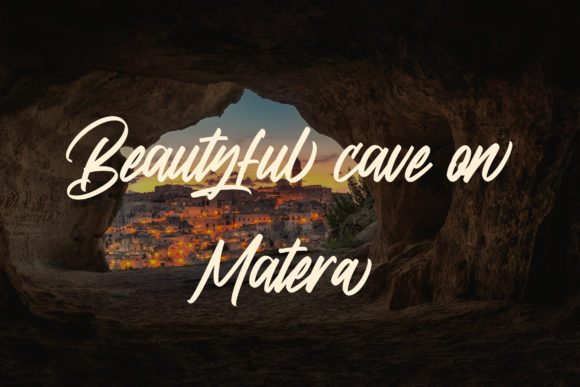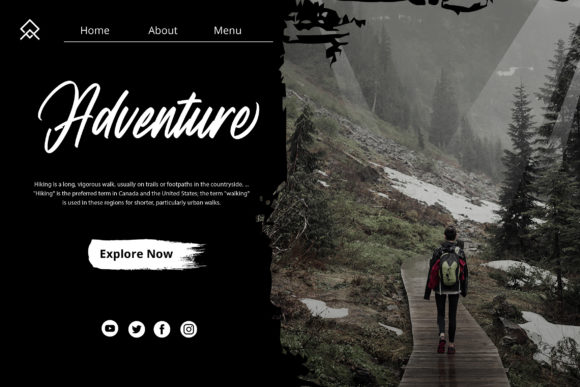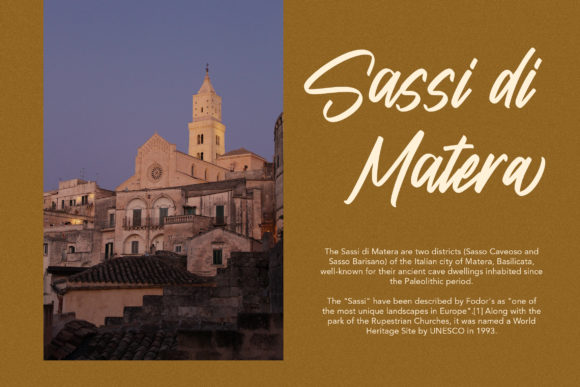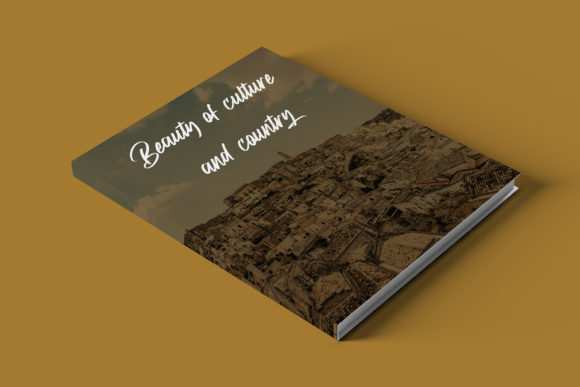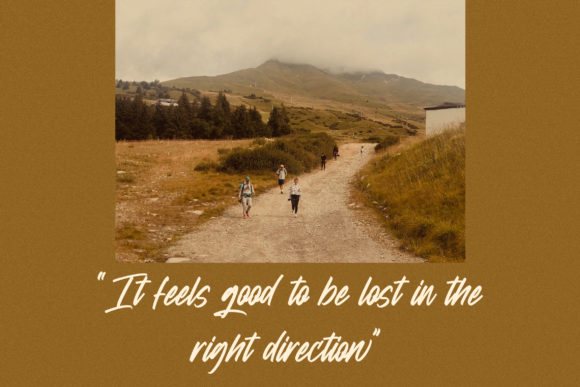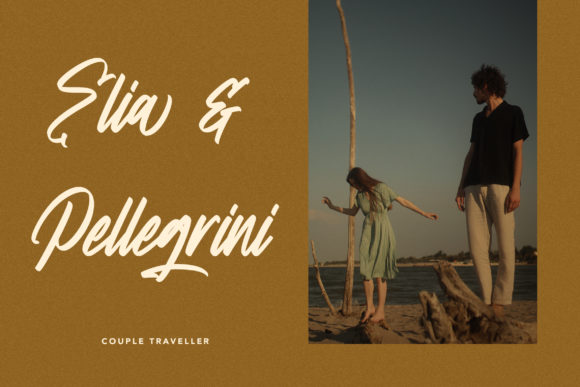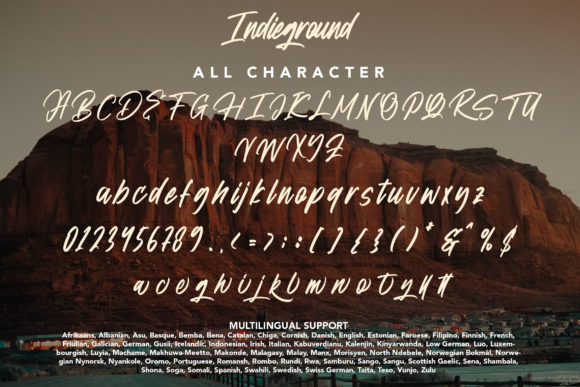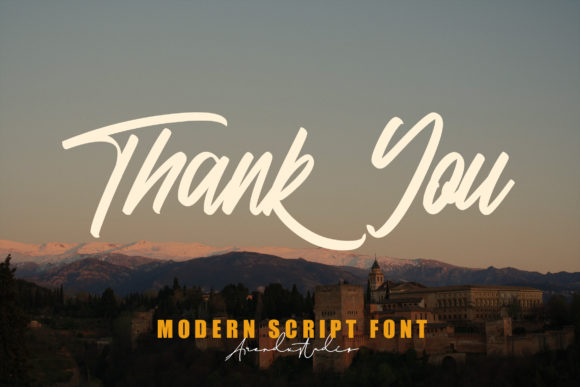
Indieground Font
About Indieground Font
Indieground is a paint brushed and cursive script font. Trendy and stylish, this font will elevate each of your creations. Indieground is PUA encoded which means you can access all of the glyphs and swashes with ease!